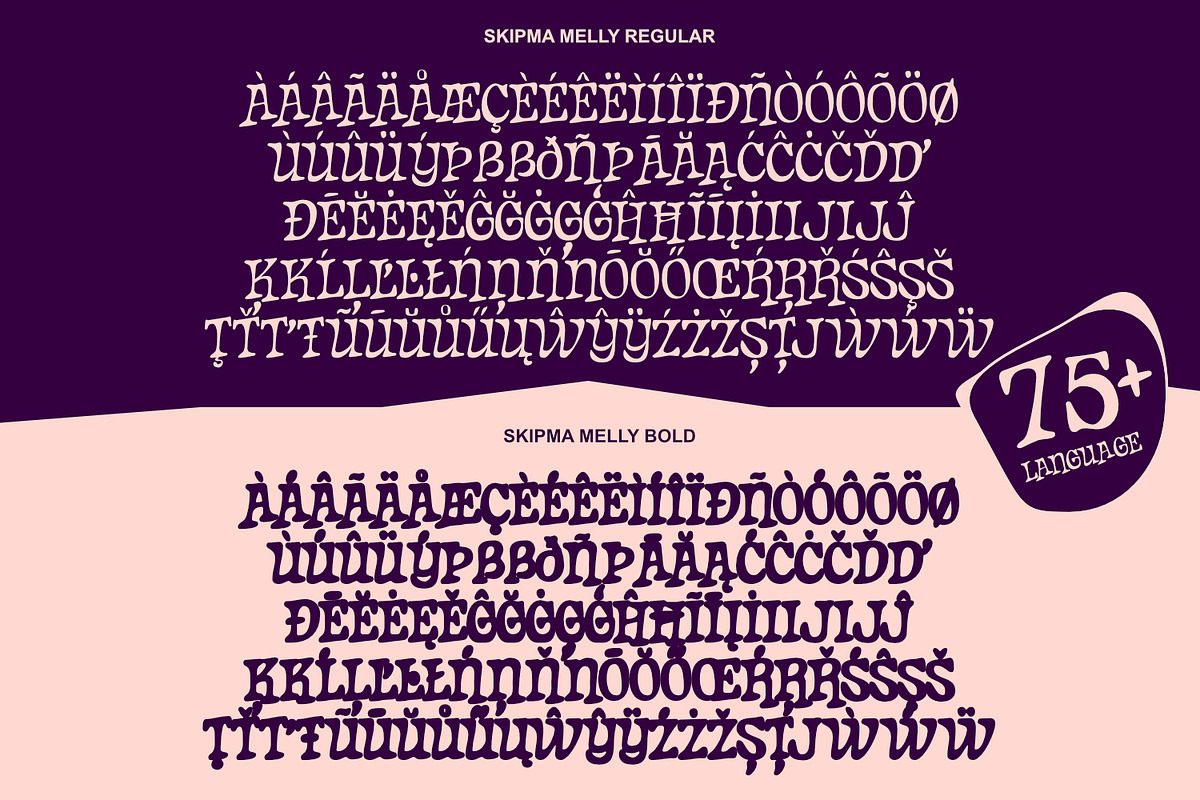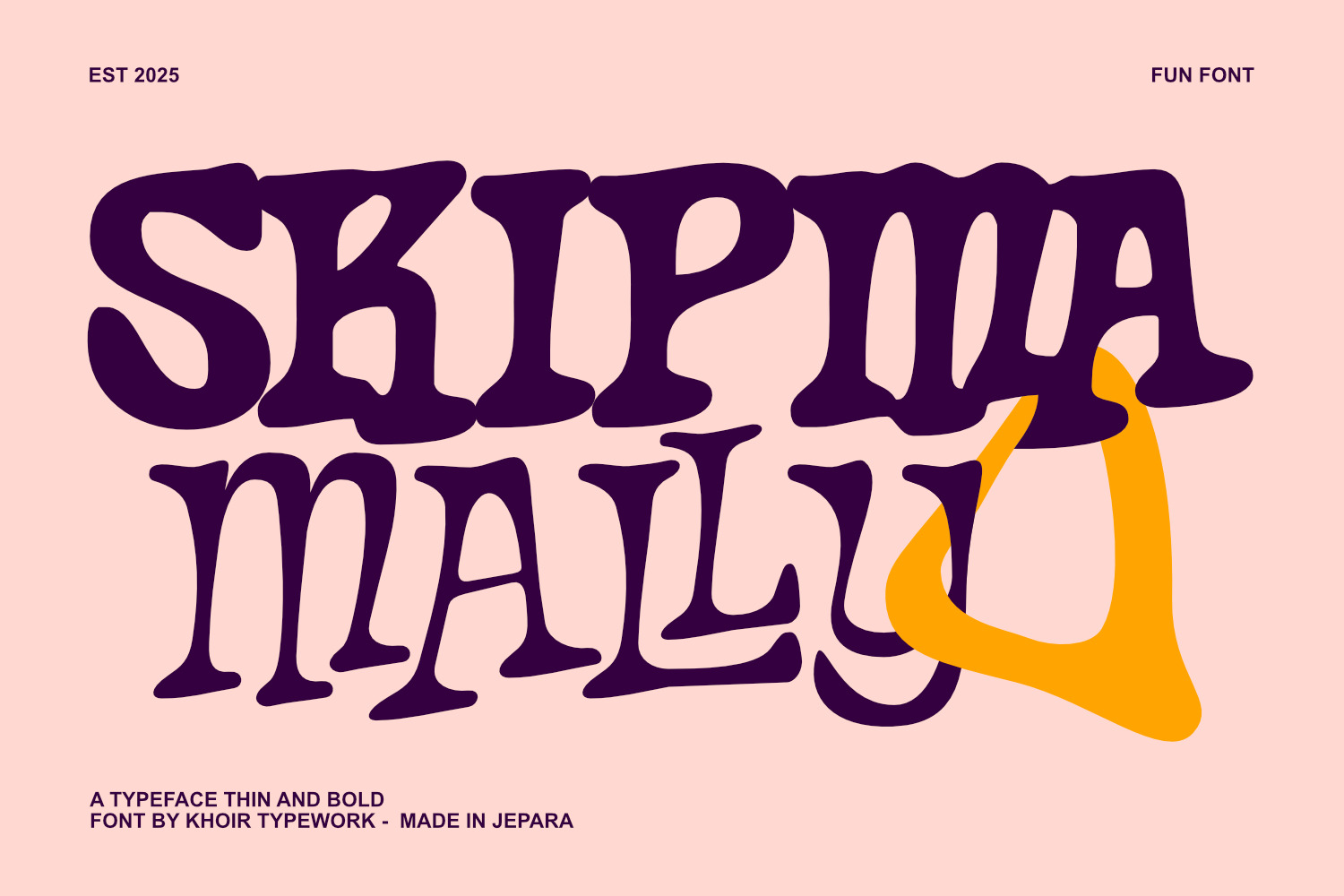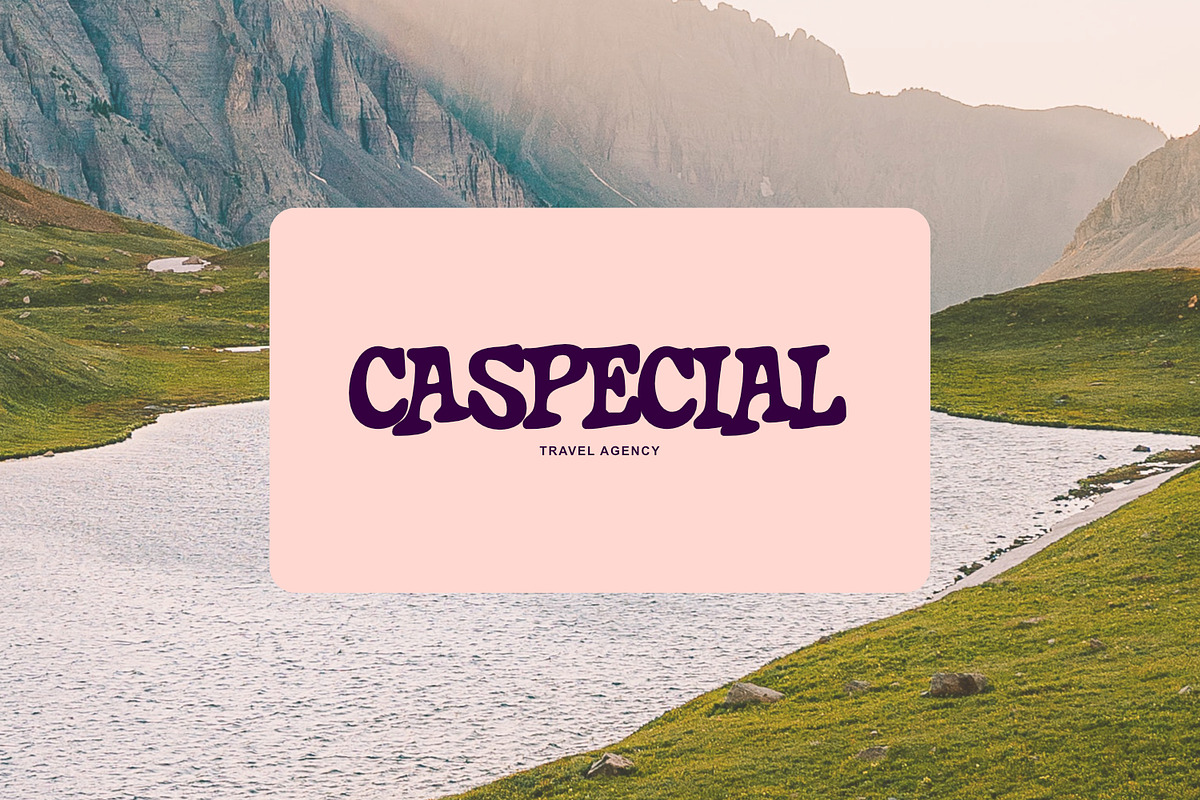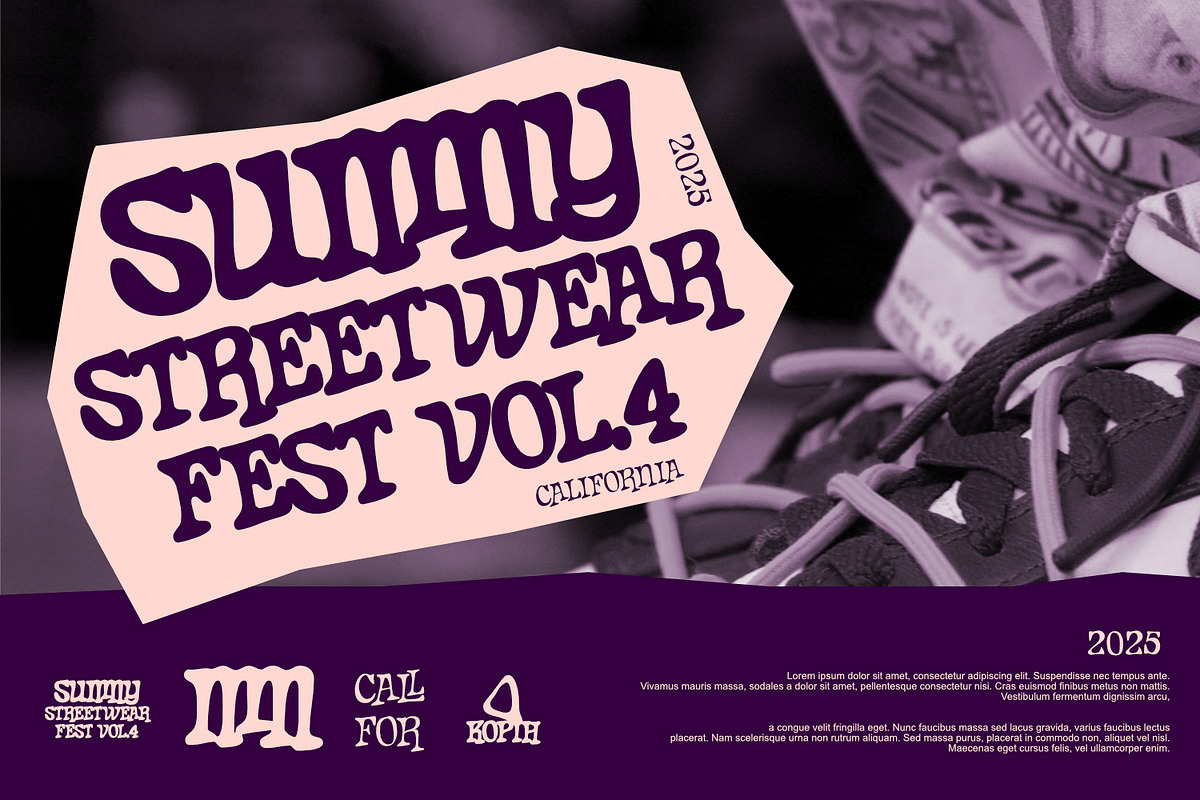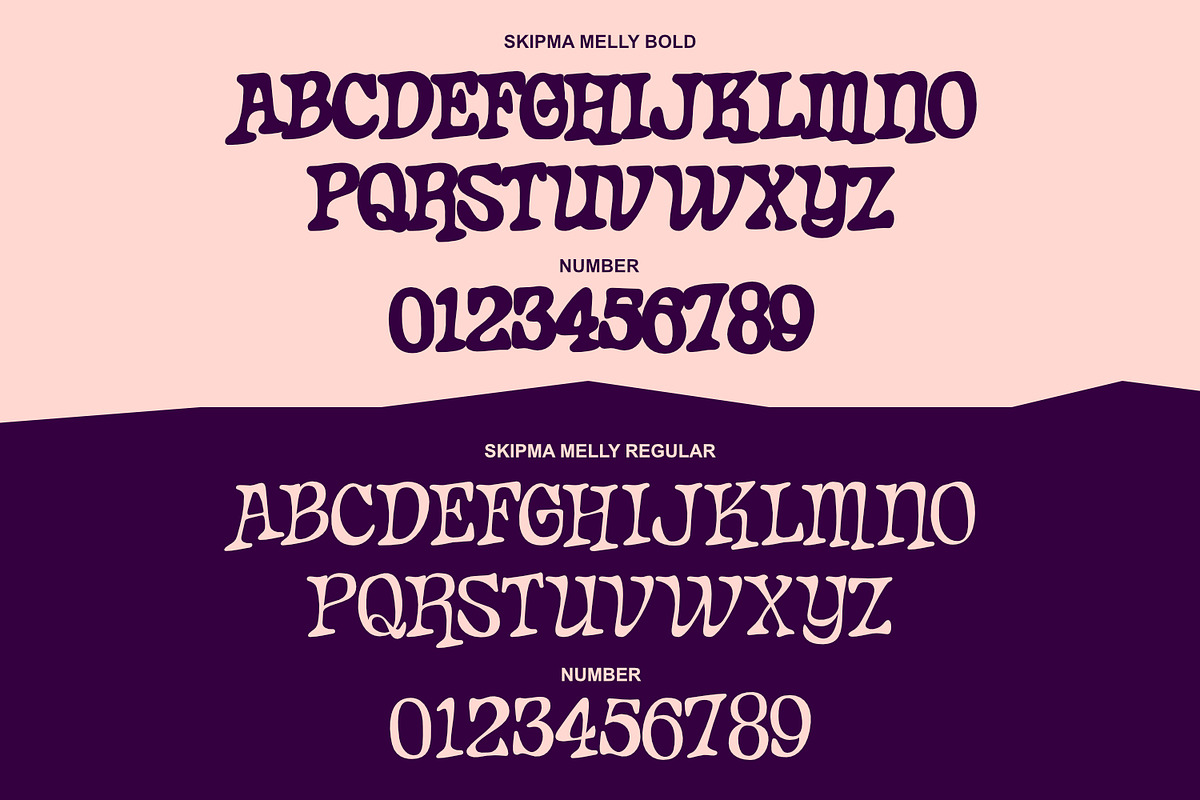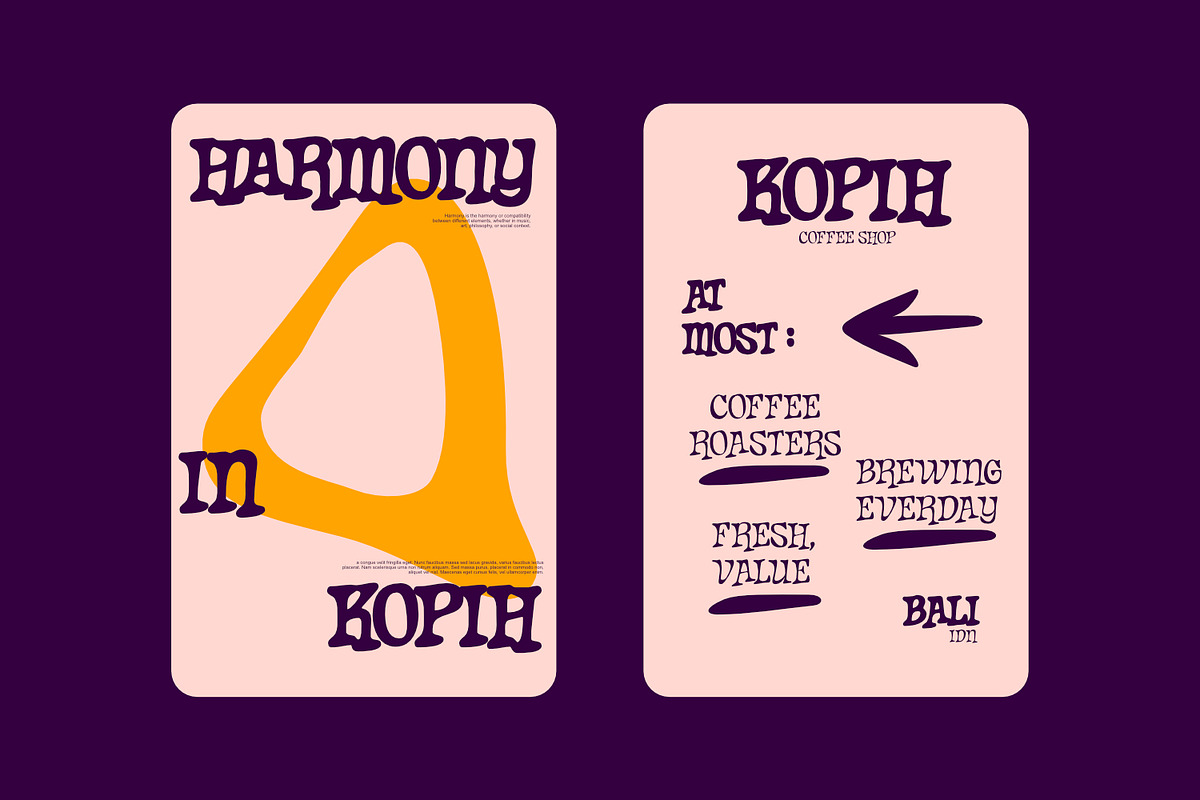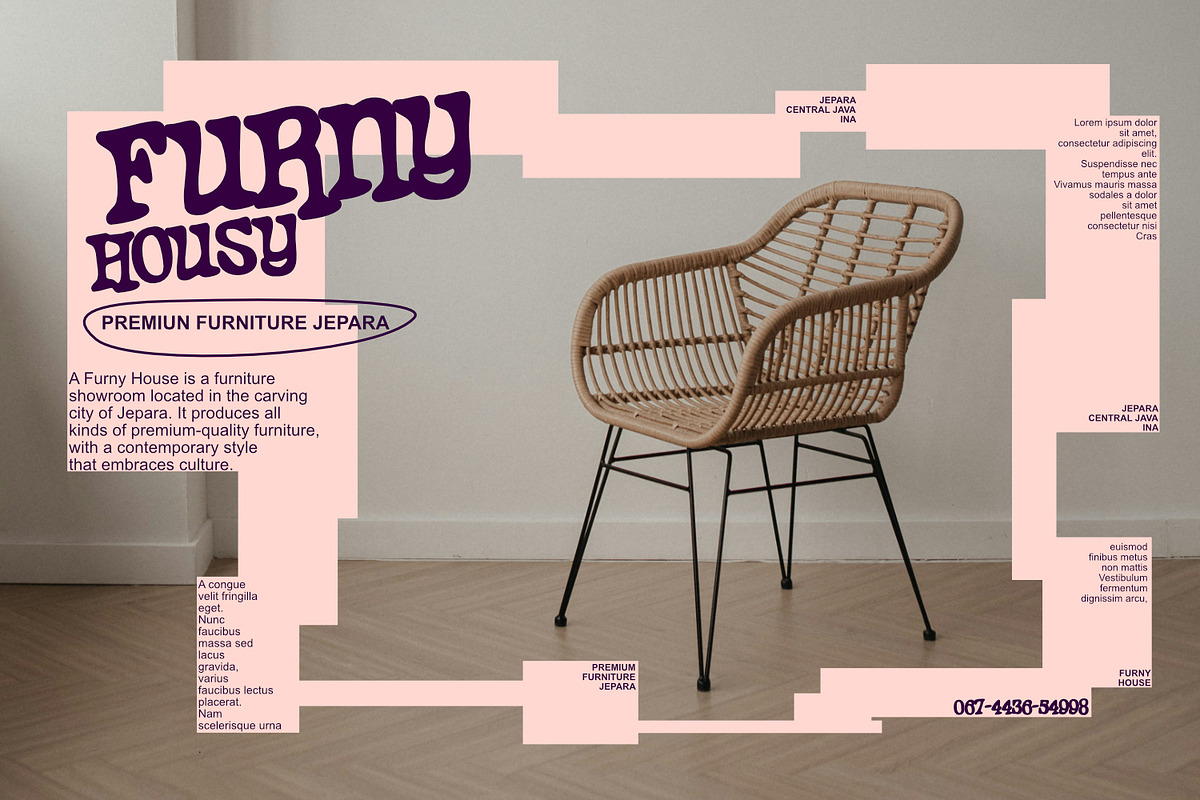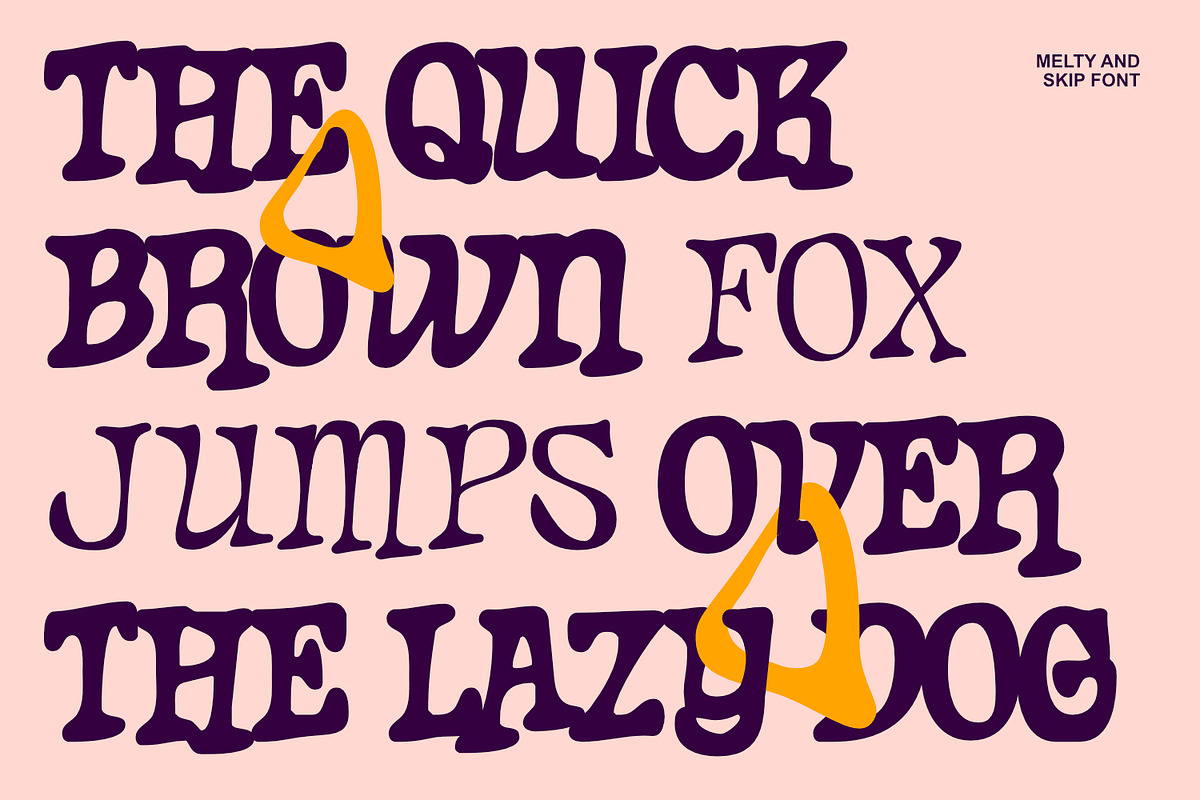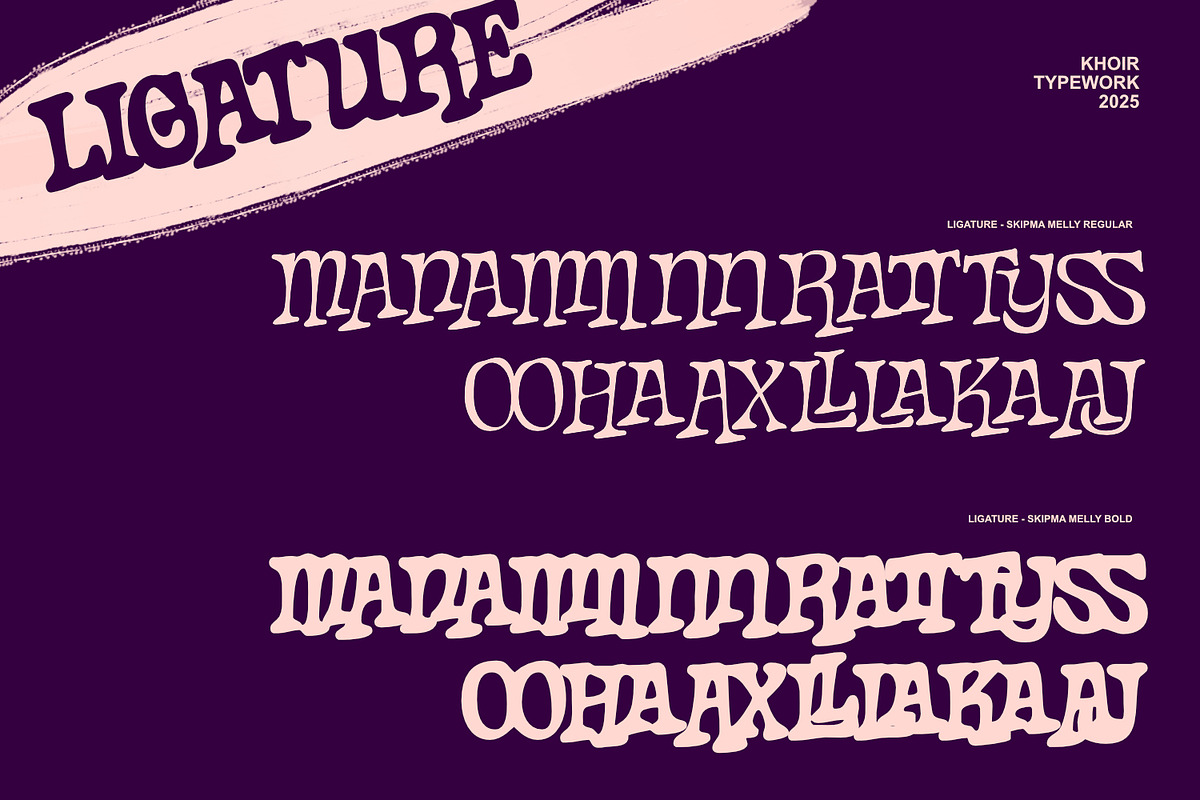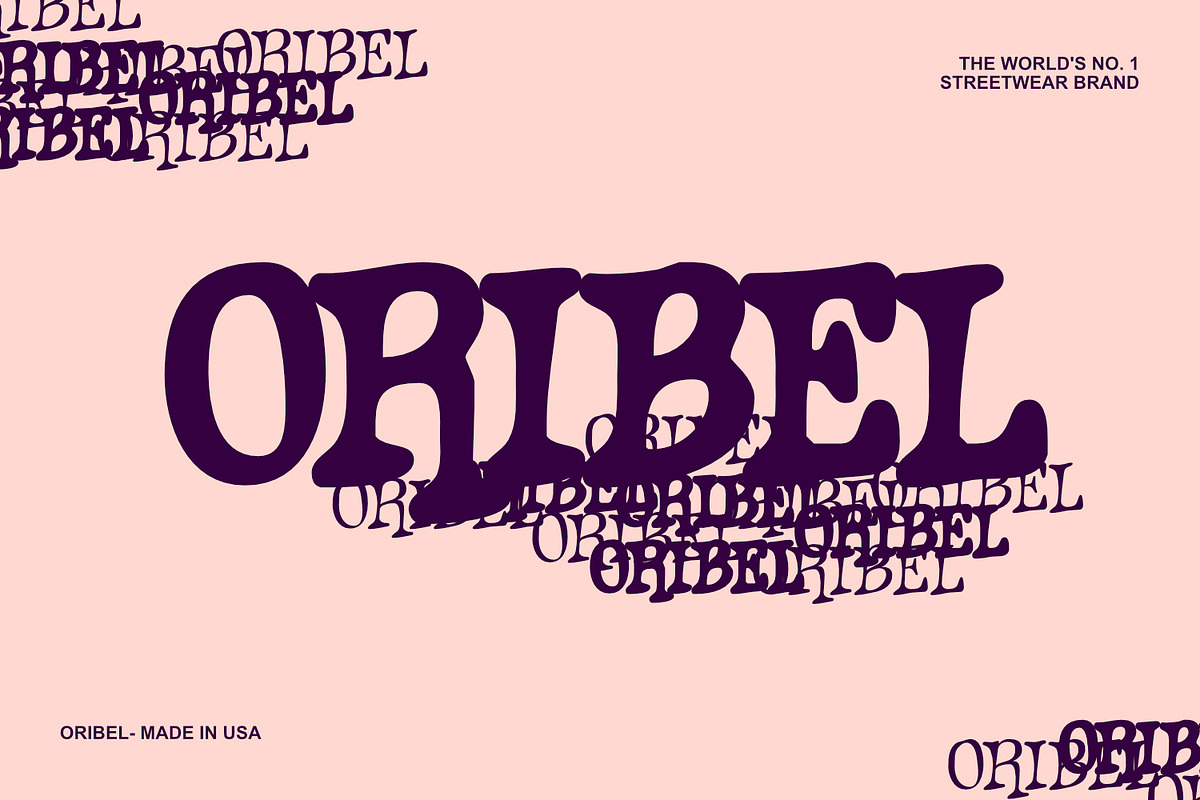
Skipma Mally - Fun Font
A fun font with a random layout but still looks harmonious when read, has ligature features in some of its letters making it look different from the others, this font also consists of two variations, namely Regular and Bold which makes it functional and can be applied to any design, such as Logos, Packaging Designs, Business Cards, Posters, Branding and others.
- 75+ Language